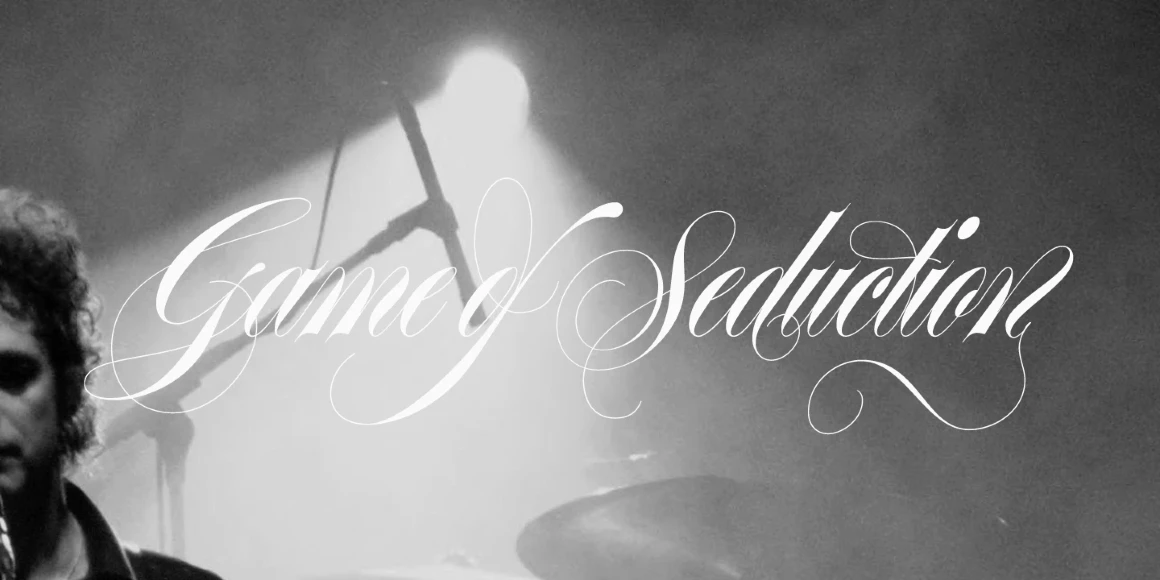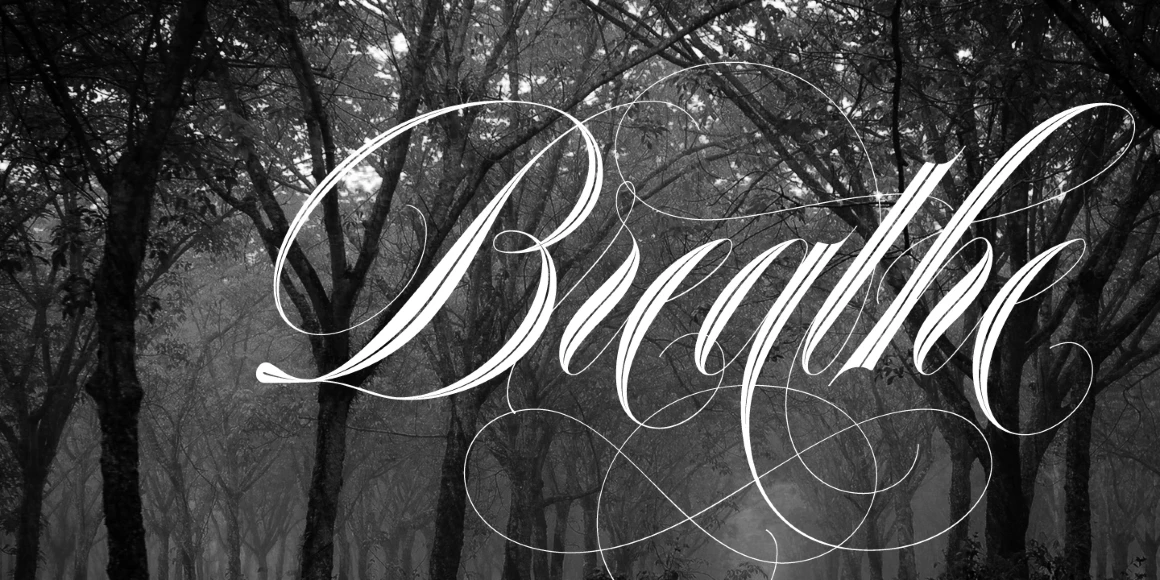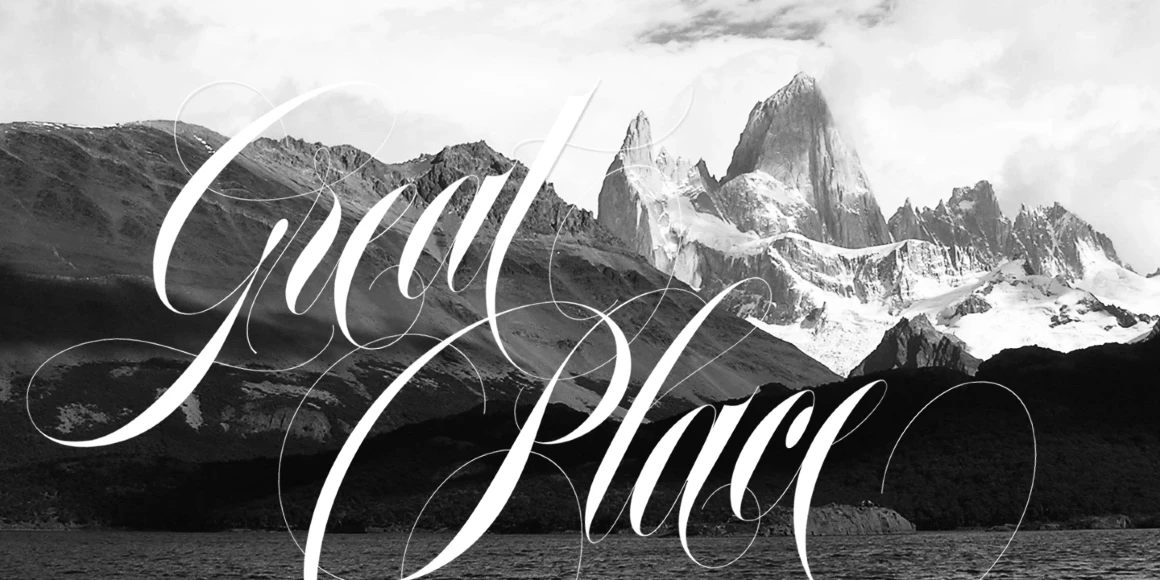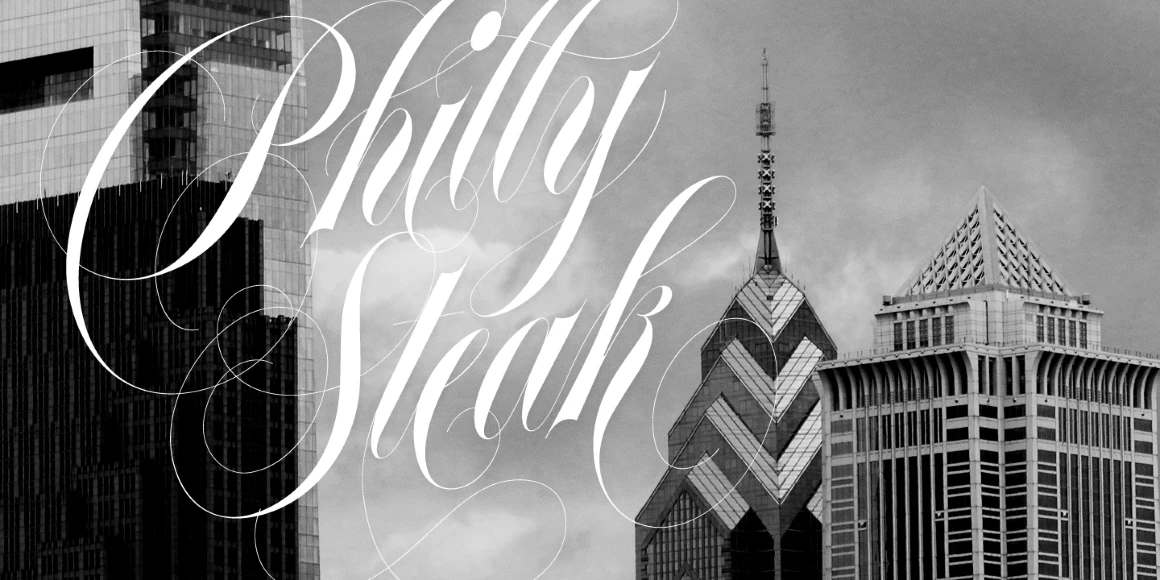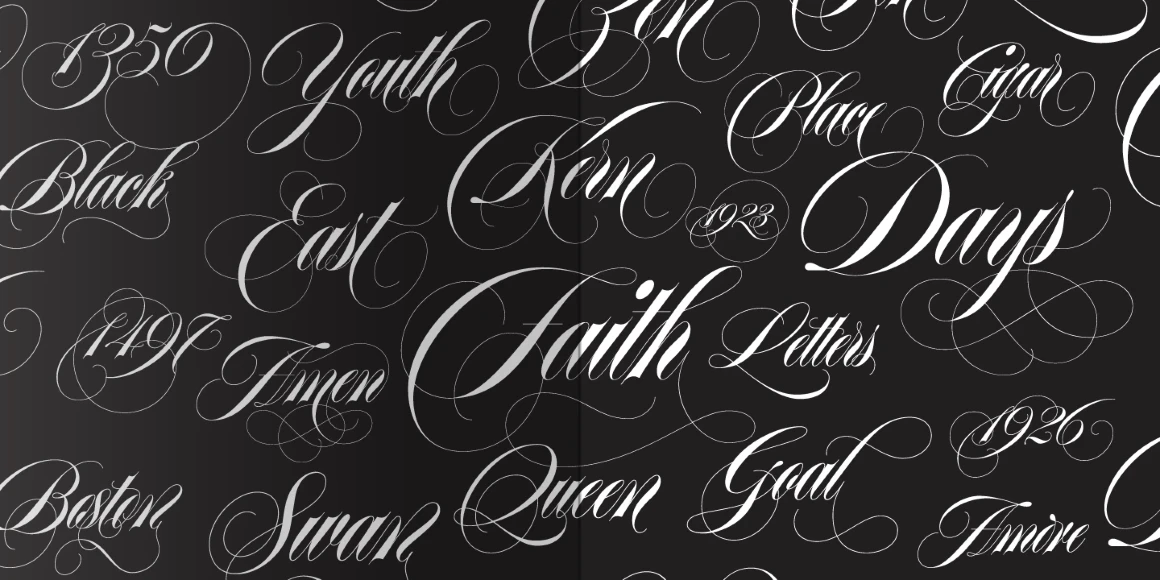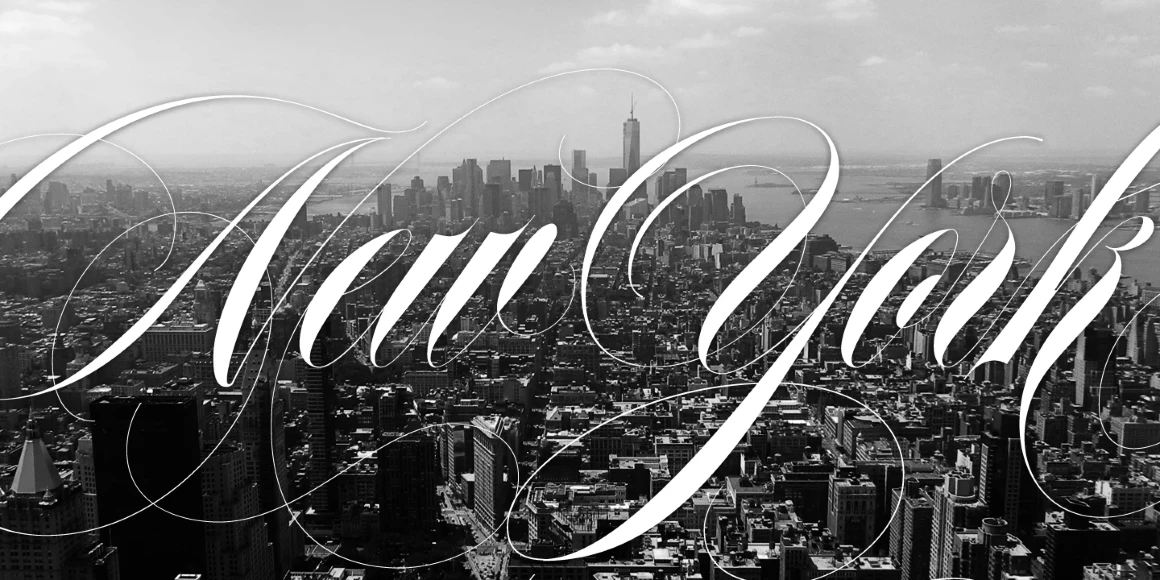
Erotica
By Maximiliano Sproviero
Erotica Fleurons
Erotica Big
Erotica Inline
Erotica Small
Erotica is a sumptuous copperplate script designed to explore the elegance of contrast, curves, and calligraphic flourish. Inspired by roundhand and refined through endless experimentation, it includes a wide range of alternates, ligatures, ornaments, and companion styles — from delicate Small to ornate Inline and classic Capitals. It is display typography perfection for magazines, packaging, invitations, posters, and more! Erotica invites expression and personalization with every word.